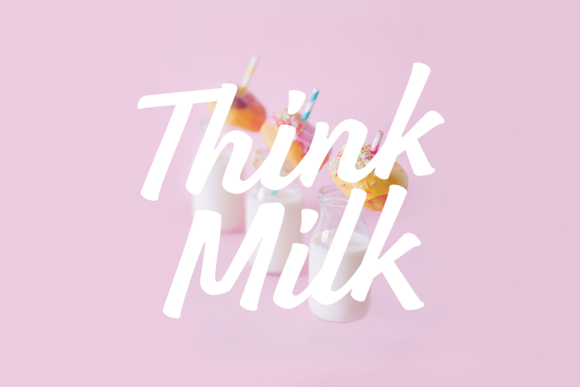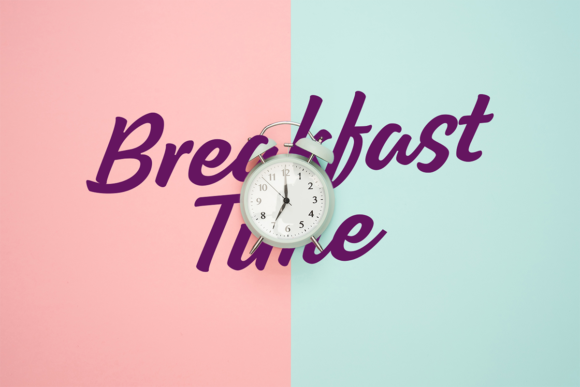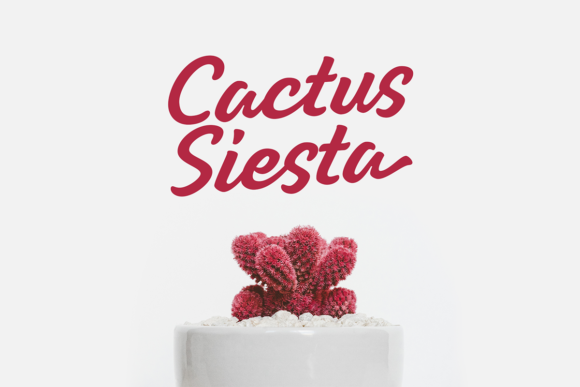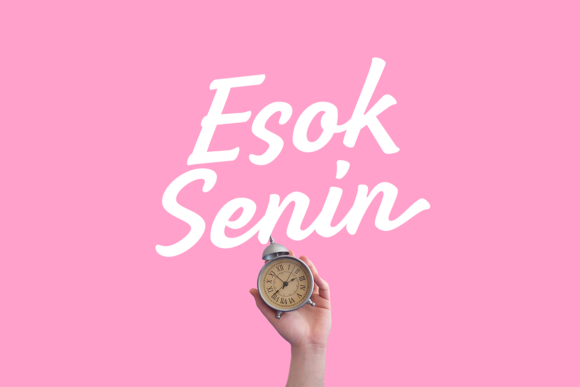
Introduction to Giseda Font
Giseda is a lovely brushed handwritten font, featuring the perfect amount of trendiness.
Cursive and incredibly adaptable, this font will match plenty of designs .